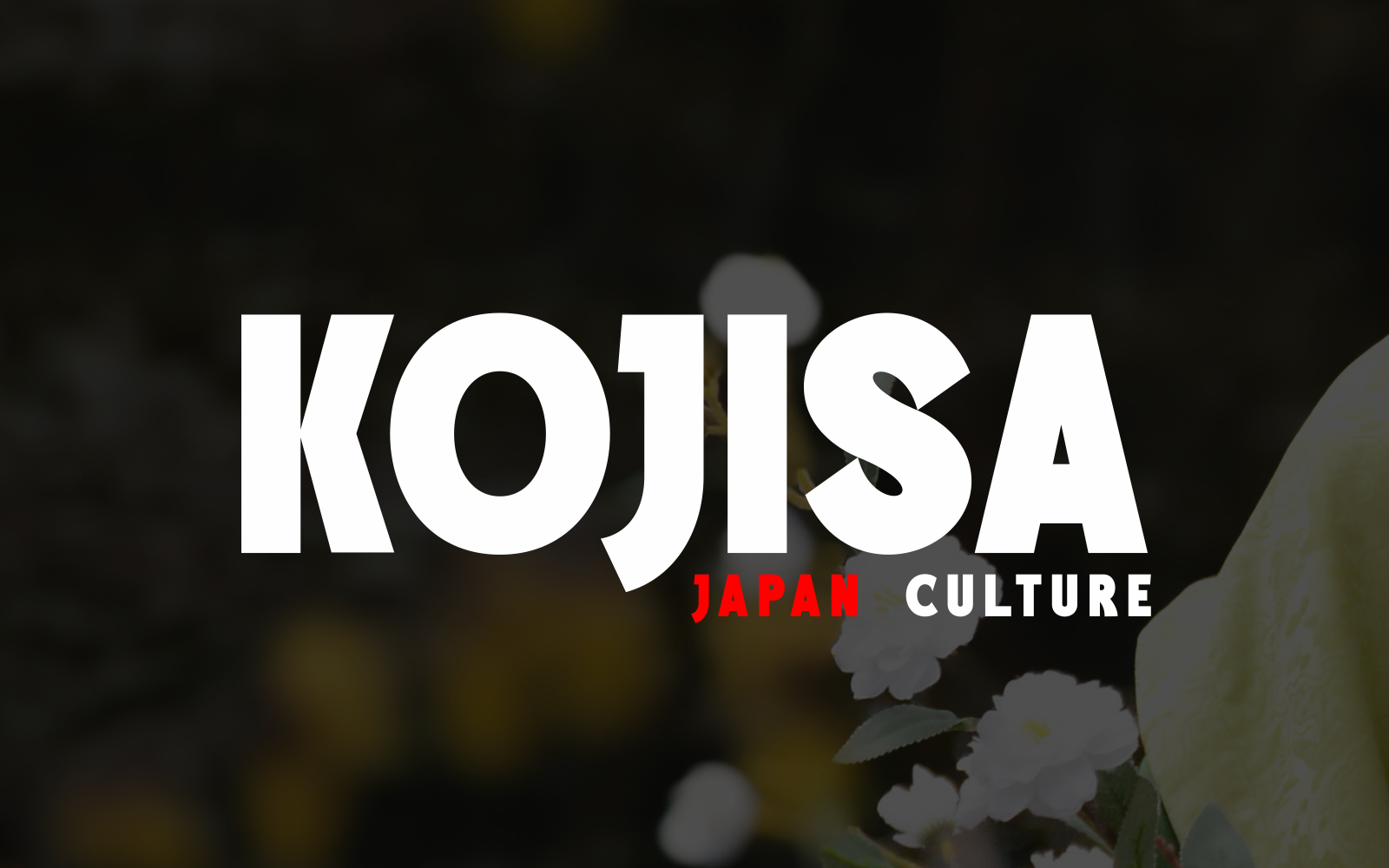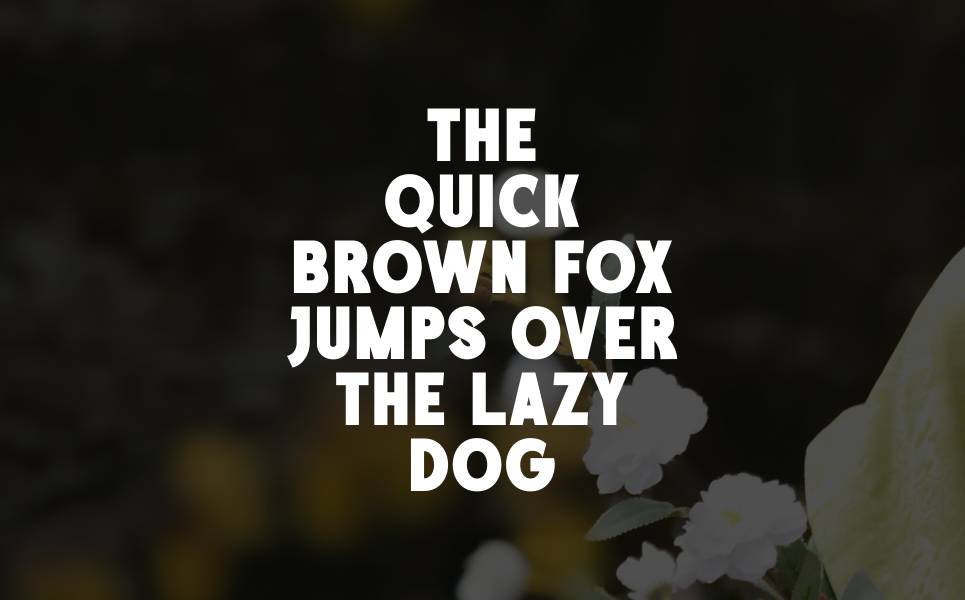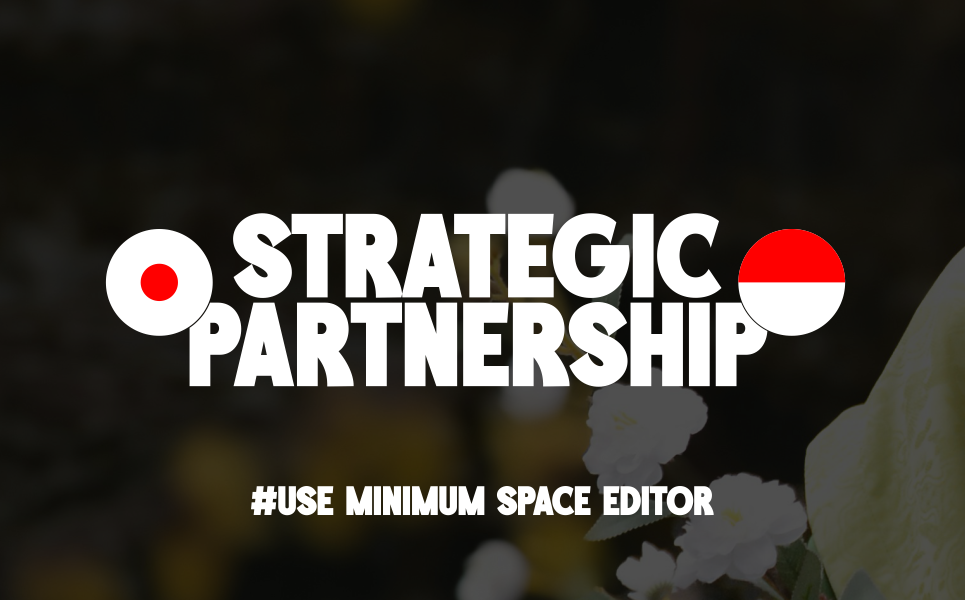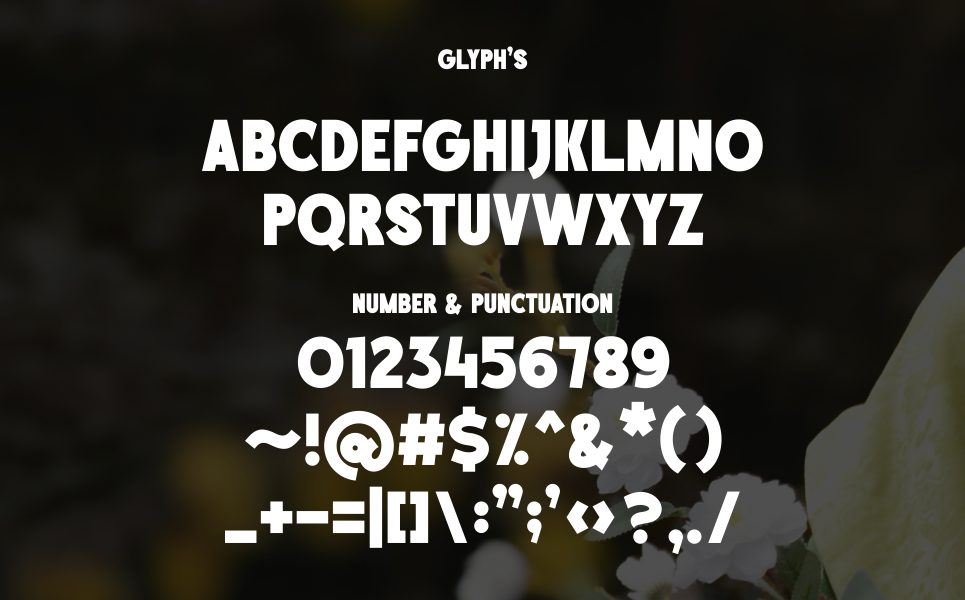
Kojisa – Bold Company Font with Japanese Cultural Style
Kojisa is a bold and powerful display font inspired by Japanese culture. Perfect for logos, branding, packaging, and corporate designs that need strength and cultural depth. A great fit for modern businesses with an Asian influence. Includes OTF & TTF formats.